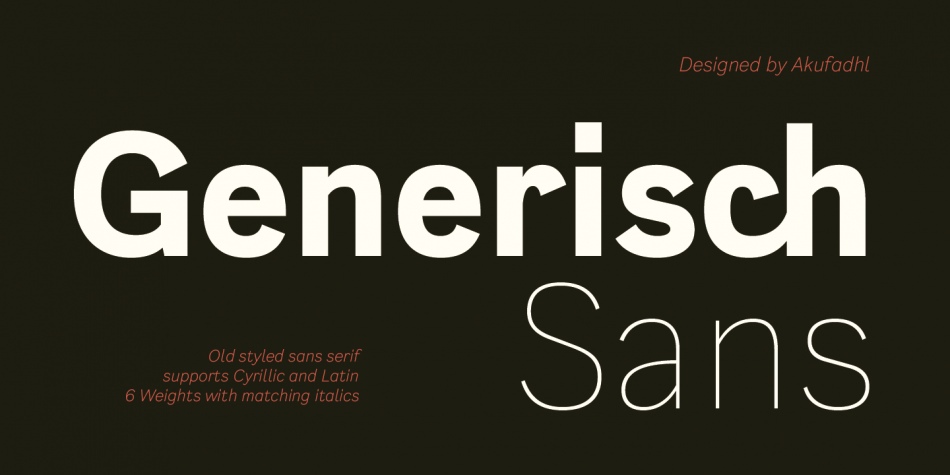
Generisch Sans Font
Generisch Sans Font is perfect for clean branding projects, minimalist logo design, modern editorial layouts, tech interface design, corporate communications, sleek packaging solutions, contemporary web typography, professional presentations, and streamlined advertising materials. This versatile typeface works exceptionally well in both digital applications and print media where clarity and modern functionality are essential design requirements.
What makes Generisch Sans Font so exciting is its perfect balance of neutrality and character that creates a highly adaptable yet distinctive typographic solution for contemporary design challenges. The font features clean, geometric letterforms with optimized spacing, subtle humanistic touches, and carefully refined details that ensure exceptional legibility while maintaining a professional modern aesthetic. Its versatile personality and systematic design approach make it ideal for brands seeking reliable typography that communicates efficiency, innovation, and forward-thinking professionalism across diverse applications.
The Generisch Sans Font family includes comprehensive weight variations from thin to black, along with matching italic styles and condensed versions. Each style maintains the typeface's systematic clarity while offering extensive multilingual support, complete numeral sets, comprehensive punctuation, and special characters designed to meet the demanding requirements of global communications and international brand applications.
This remarkable typeface represents the evolution of contemporary sans-serif design philosophy optimized for multi-platform performance. Whether you're developing technology brand identities, creating user interface systems, or designing corporate identity programs, Generisch Sans Font Free Download provides the reliable functionality and professional appeal needed for successful modern communications. The font's systematic approach makes it particularly effective for software companies, consulting firms, architectural studios, and organizations prioritizing clarity and efficiency.
The precisely engineered metrics and optimized rendering in Generisch Sans Font ensure consistent performance across all devices and media while maintaining its clean aesthetic integrity. Its exceptional versatility allows seamless scaling from small interface text to large display applications, making it an invaluable foundation for comprehensive design systems that require both technical excellence and visual sophistication.